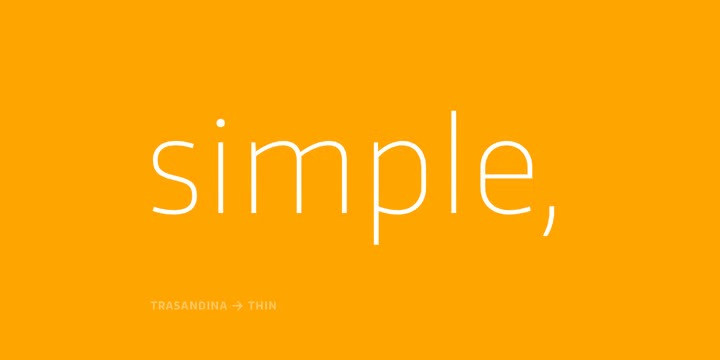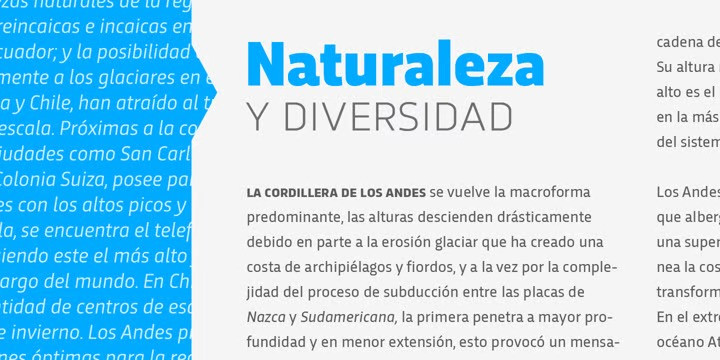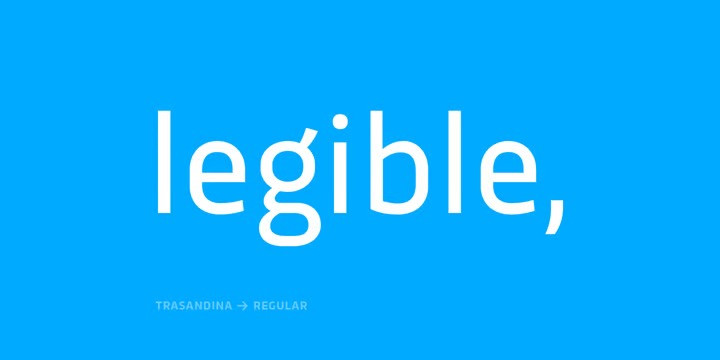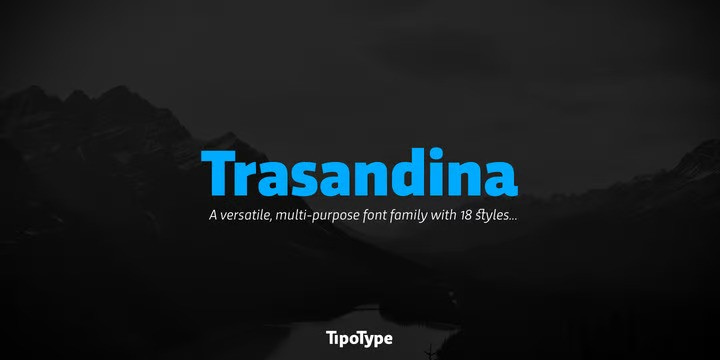
Trasandina Font Family
Trasandina Sans Serif Font is a versatile geometric sans serif, a simple, clean and direct family. Trasandina is a very unique font-family: a modern, versatile, workhorse typeface with a special personality, given by the mix of humanist and geometric models, remaining far from both extremes. This typeface has 9 styles plus their matching italics, it has an incredible wide range of weights, from very thin to an ultra thick stem. This was made following the Luc(as) de Groot’s Interpolation Theory. Trasandina’s versatility also resides in the +800 characters that each weight includes, having several open type features and language support for more than 200 languages. This font has been specially designed for web (using hinting instructions), making it work in small and large sizes on different types of screen resolutions. Trasandina’s most interesting feature is its flexibility: On one hand, is easy to read thanks to its humanistic letterforms which allow this typeface to be legible in small sizes while remaining neutral (specially around its middle weights). And, at the same time, it’s perfect for logos and posters that need a lot more personality, this is mainly due to its more geometric nature in light and bold weights.